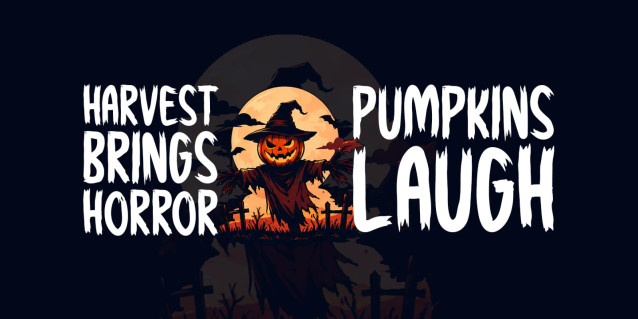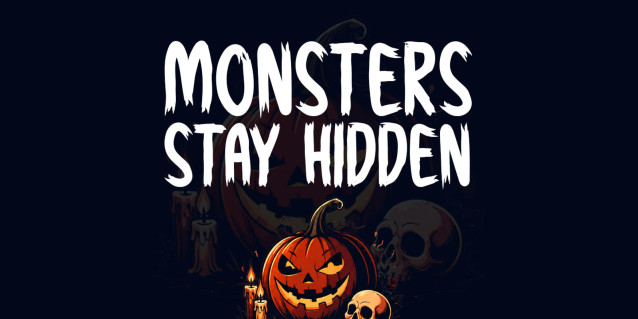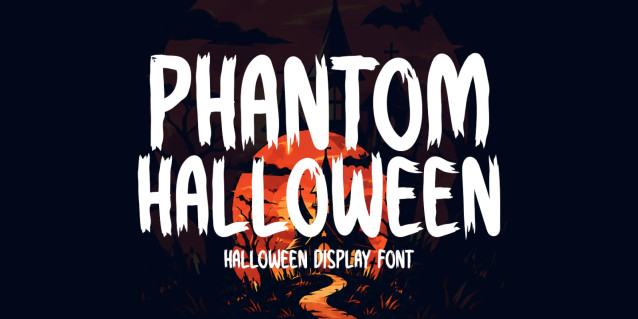
Phantom Halloween Font
Phantom Halloween is a bold spooky display font crafted for haunted branding, horror posters, party invitations, apparel, stickers, packaging, social media, and seasonal decorations. Its eerie letterforms capture the mysterious spirit of Halloween, delivering striking visuals that stand out across both print and digital creative projects with unforgettable gothic charm.